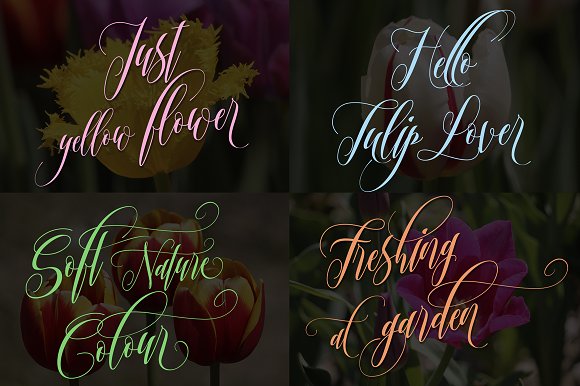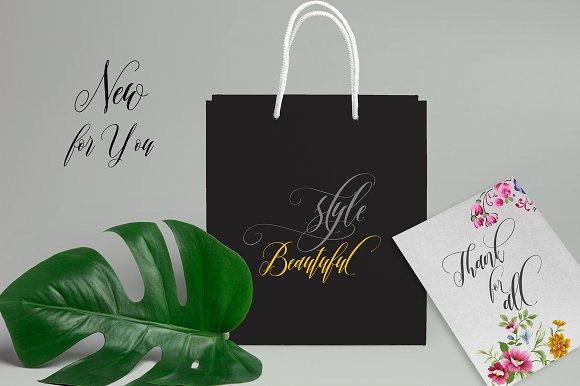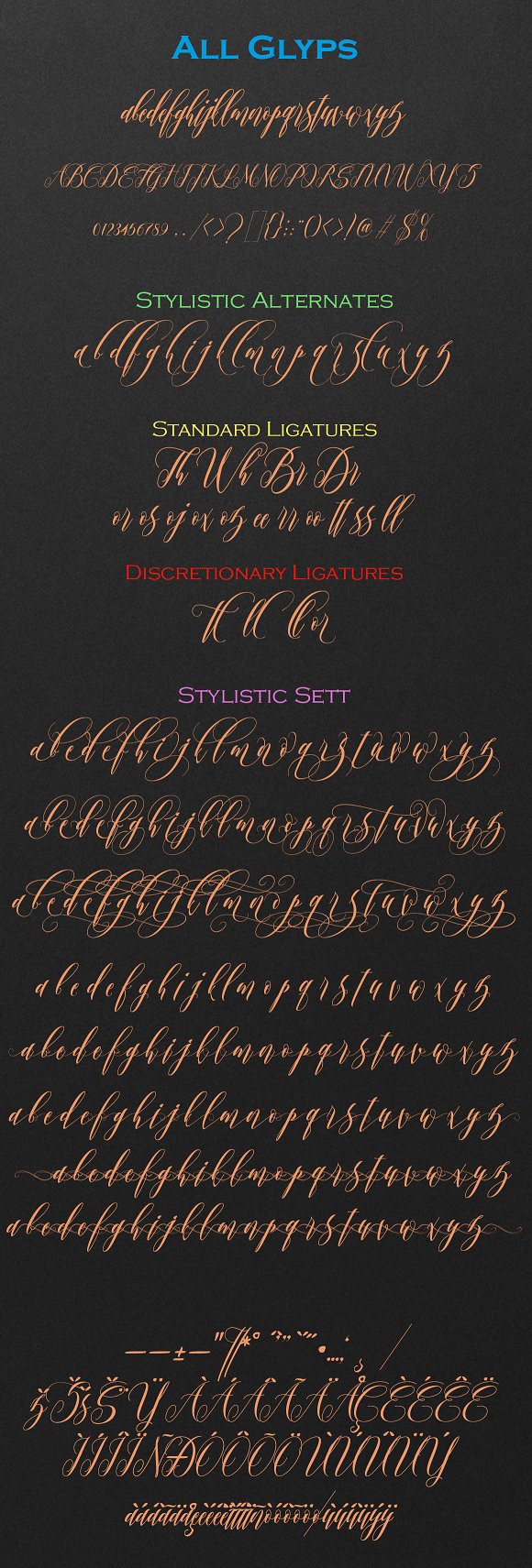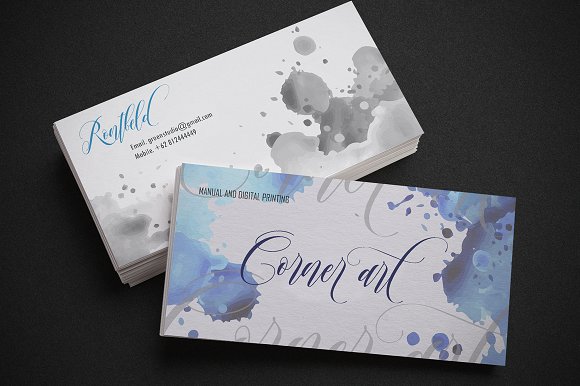
Twetter Script Font
Twetter is a font that made the hand by having the character up and down like a dancer. Twetter has a very unique style of calligraphy, it is very suitable for use in the work of modern design.